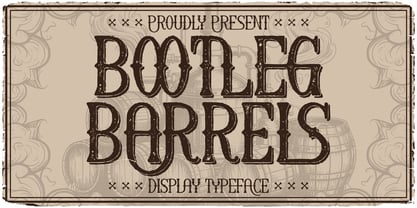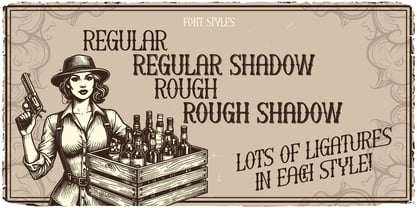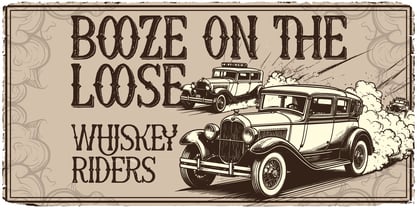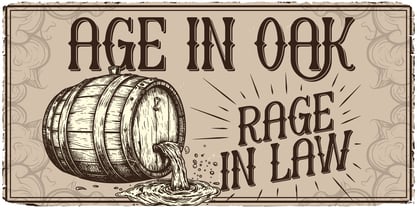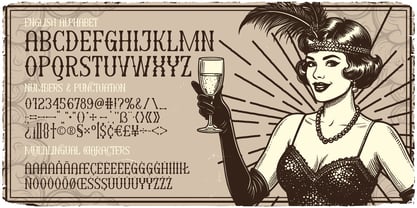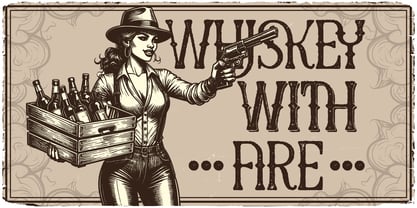
Bootleg Barrels
by Vozzy
Introducing the captivating font "Bootleg Barrels," designed specifically for headlines and accent inscriptions that demand attention. This unique typeface features a rich array of additional characters, punctuation marks, and multilingual options, making it versatile for various design needs. With a generous selection of standard ligatures, ensure your software supports this OpenType feature to fully utilize its potential. "Bootleg Barrels" will enhance your beautiful designs, making them stand out in branding, web, and editorial projects.
Designers: Oleg Voznyy
Foundry: Vozzy